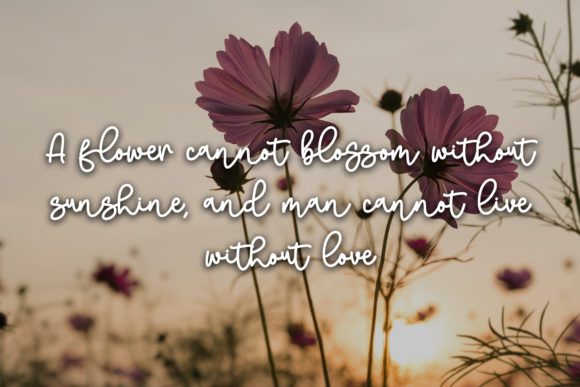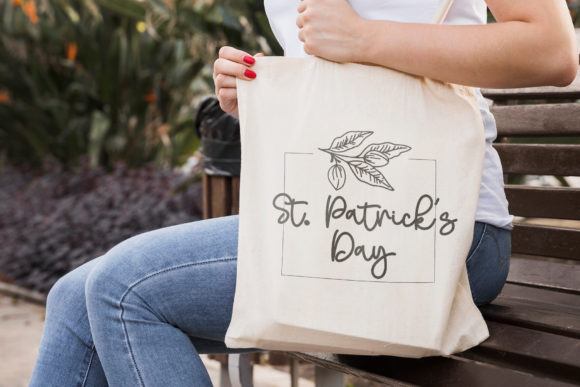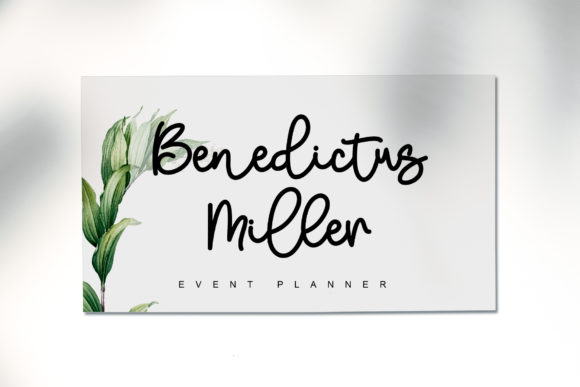
About Melukis Senja Font
Melukis Senja is a beautiful and versatile script font that brings simplicity and elegance to any design. With its clean and flowing letterforms, this font is perfect for a wide range of projects, including branding, logos, wedding designs, social media posts, advertisements, product packaging, photography, invitations, and more.
The simplicity of Melukis Senja gives it a timeless and classic appeal, making it suitable for various design styles and themes. Whether you’re going for a modern and minimalist look or a romantic and whimsical vibe, this font can adapt and enhance your design effortlessly.
With its PUA encoding, Melukis Senja offers easy access to a variety of amazing glyphs and swashes. This allows you to add extra flair and customization to your designs, making them truly unique and eye-catching. Whether you want to embellish certain letters, add decorative elements, or create beautiful ligatures, the additional glyphs and swashes provide you with endless possibilities.
When using Melukis Senja, consider pairing it with complementary fonts to create a harmonious design. It can work well with serif or sans-serif typefaces for a balanced and modern look, or it can be combined with other script fonts to add more variety and creativity to your typography.
Overall, Melukis Senja is a versatile and charming script font that adds a touch of elegance and simplicity to your projects. Its PUA encoding ensures easy access to an array of glyphs and swashes, allowing you to unleash your creativity and create stunning designs that leave a lasting impression.